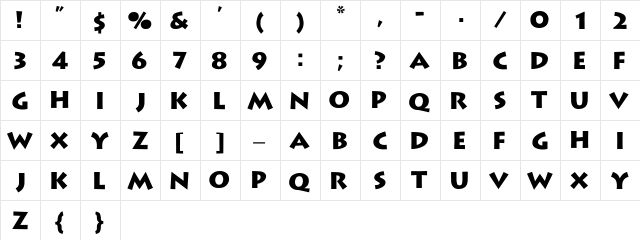
Lithograph Regular
Design Context for Lithograph Typeface
Lithograph takes a measured approach to typography — its balanced proportions and neutral character make it a reliable workhorse for both digital and print work.
Pro Tip: Use Lithograph in both headline and body roles to test its range before committing to a single application.